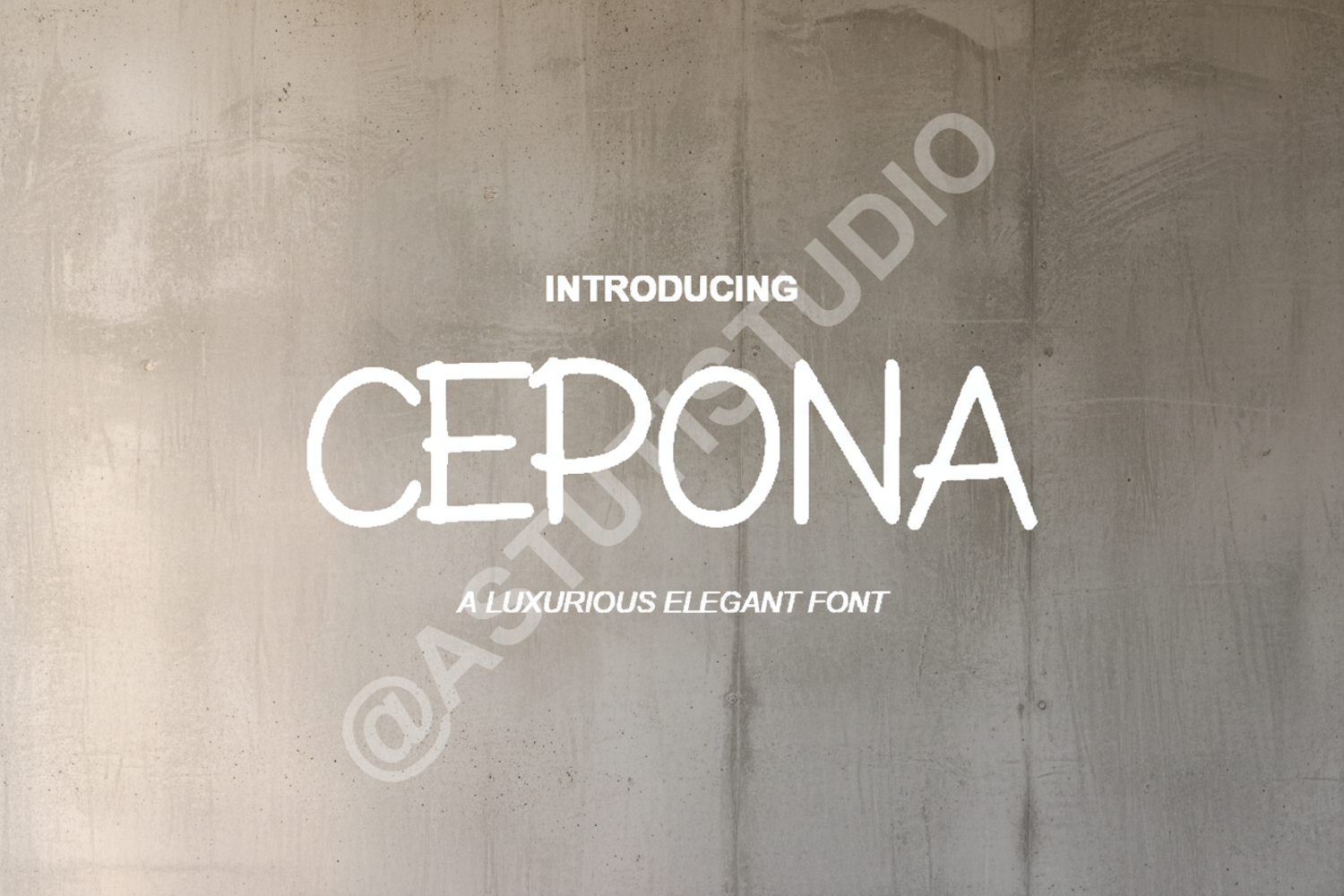
Cepona - Elegant Modern Serif Display Font
Cepona
Cepona is a premium serif typeface that seamlessly blends timeless elegance with contemporary design. Crafted with precision, this font exudes sophistication and high-end charm, making it an essential addition to any designer's toolkit. Whether you are working on a luxury brand identity or a minimalist editorial layout, Cepona provides the perfect balance of readability and artistic flair.
- Full Character Set including Uppercase and Lowercase
- Numbers and Punctuation
- Multi-language Support